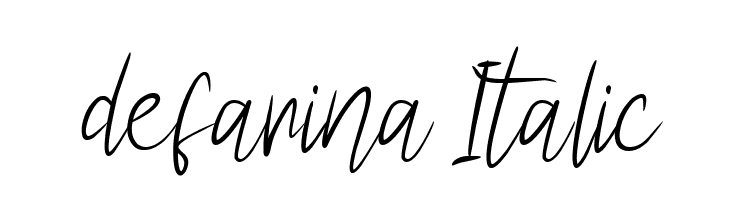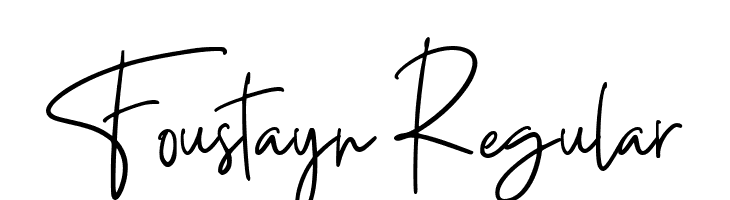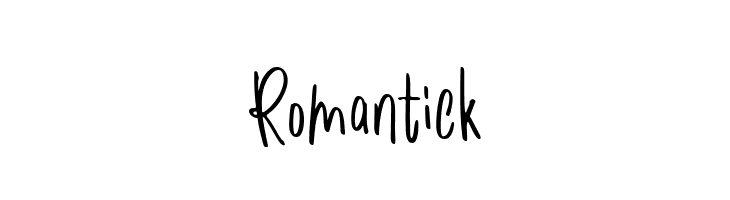
A bold, condensed, and slanted font with a modern and dynamic style.
A modern, cursive font with elegant, flowing letters and expressive swashes.
A cursive, handwritten-style font with elegant loops and slender strokes.
A decorative script font with flowing, connected characters and elegant curves.
A bold, three-dimensional font with angular, geometric characters.
A bold, 3D extruded font with sharp, geometric angles.
A bold, edgy font with sharp, jagged edges and a graffiti-like style.
A playful, handwritten font with irregular strokes and a casual vibe.
A modern, elegant script font with flowing, cursive characters.
An elegant and flowing script font with sophisticated cursive letters.